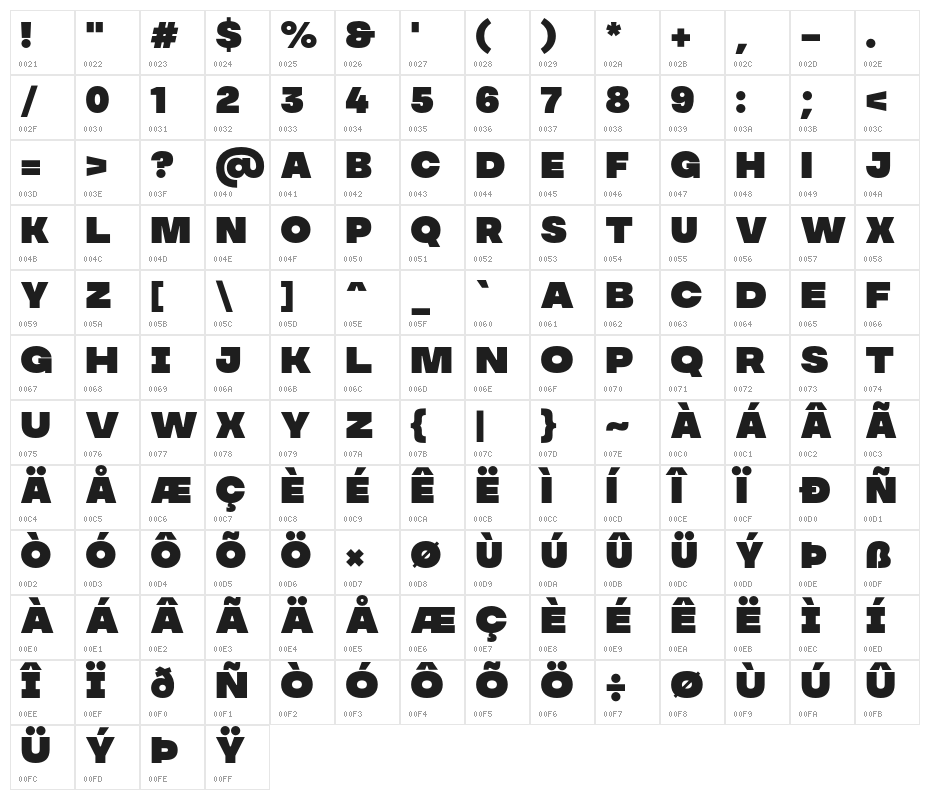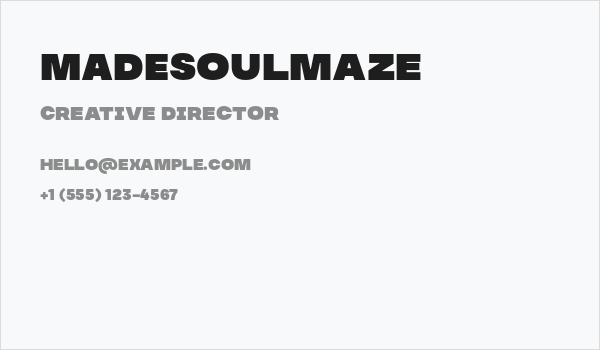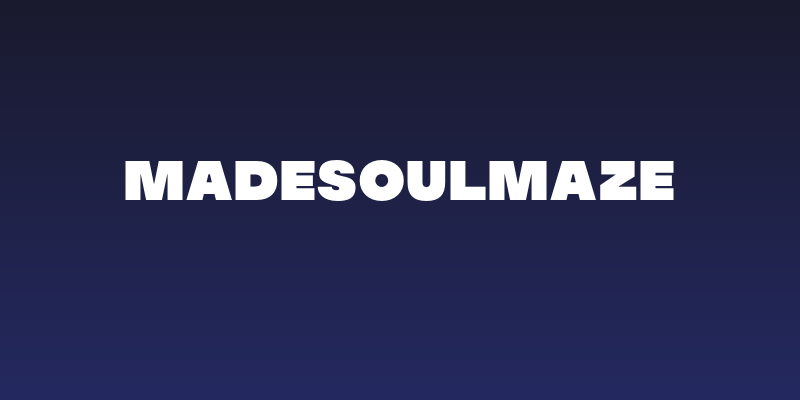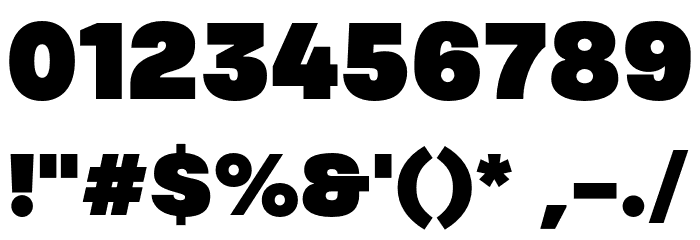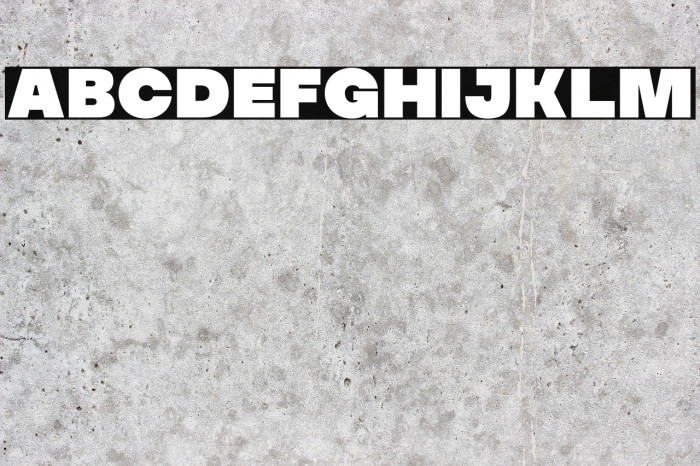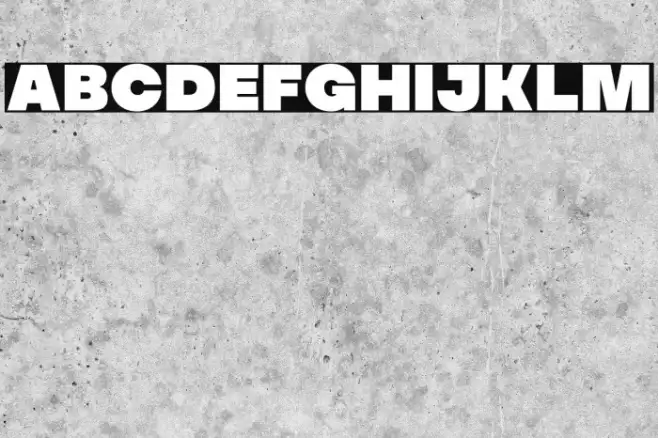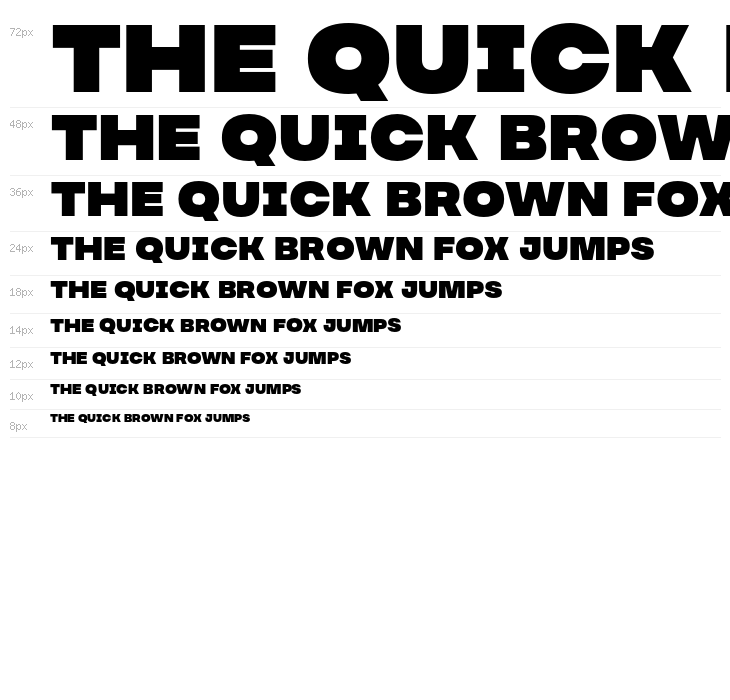
MADESoulmaze Font
MADESoulmaze Description
This font features a bold and impactful design with strong geometric shapes and a solid presence. The uppercase letters are uniformly wide, giving a sense of stability and strength. The numbers and special characters maintain this boldness, ensuring consistency across all characters. The font's thick strokes and minimal contrast make it highly legible from a distance, ideal for grabbing attention. Its clean lines and modern aesthetic make it suitable for contemporary design projects.